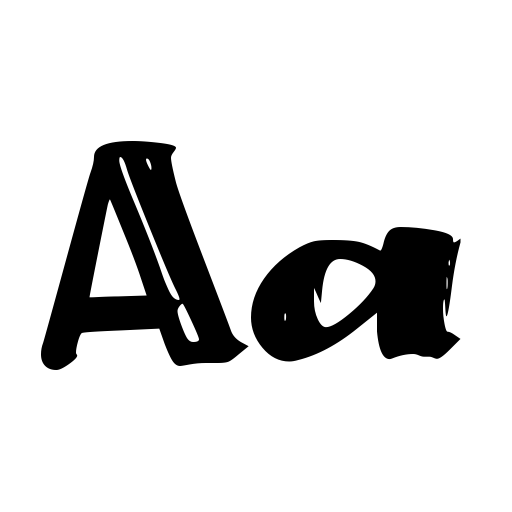
c Carut is a bold, hand-drawn serif font with a playful and textured appearance, featuring uneven strokes and rough edges that give it a lively, organic feel. Its quirky letterforms and high contrast between thick and thin strokes make it ideal for creative projects, posters, and branding that want to express energy and individuality. This font works best in display settings where its unique personality can stand out and add a fun, informal touch.
c Carut Font
About c Carut Font